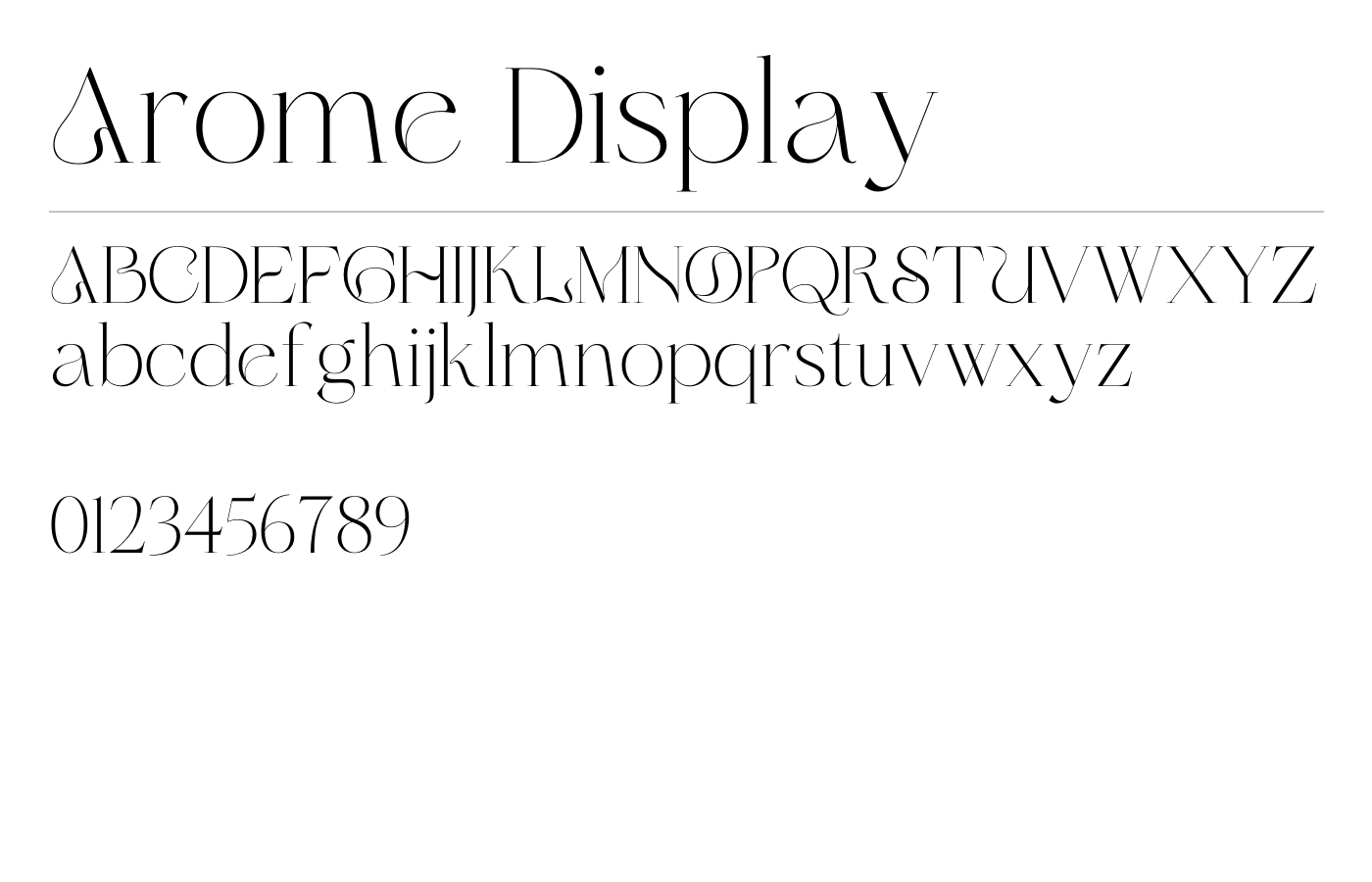
Arome Display is a sophisticated serif font characterized by its elegant thin strokes and high contrast between thick and thin lines. The font features unique, artistic letterforms with delicate curves and sharp details, giving it a modern yet luxurious feel ideal for fashion, beauty, and upscale editorial designs. Its refined style makes it perfect for striking headlines, logos, and branding where a touch of elegance and creativity is desired.
Arome Display Font
About Arome Display Font